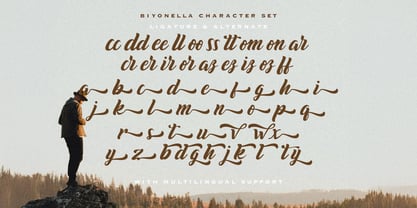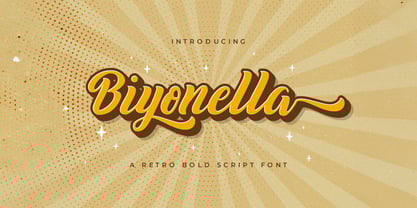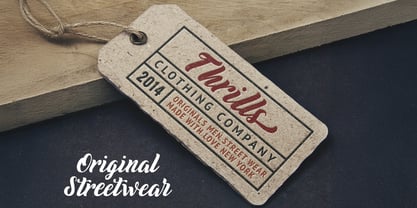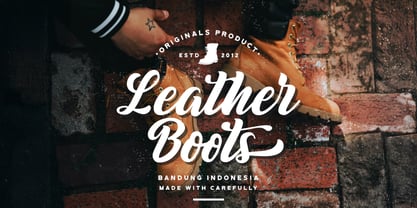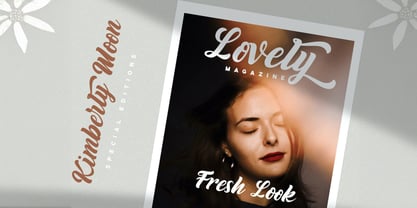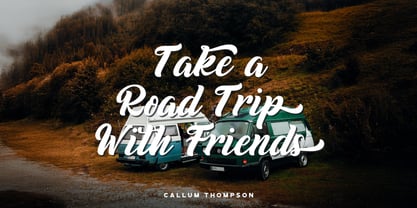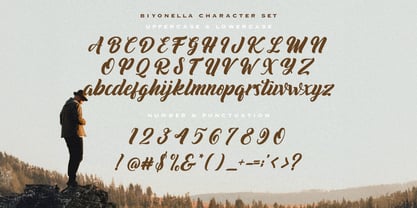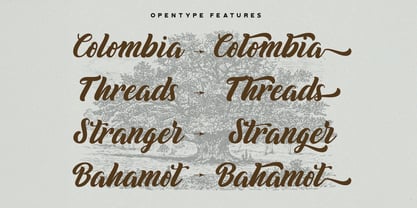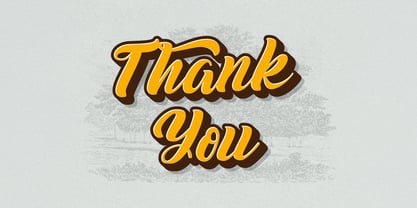
Die Schriftfamilie Biyonella wurde von Virgiawan Listanto entworfen und von Stringlabs Creative Studio veröffentlicht. Biyonella enthält 1 Stile.
Biyonella Retro is Font is a striking and nostalgic typeface that combines boldness with retro flair. Featuring smooth curves and a vintage-inspired design, this font brings a fun, energetic vibe to any project. Whether you're designing for a modern or vintage feel, Biyonella is versatile enough to make your text pop with its unique, timeless style.
Designer: Virgiawan Listanto
Herausgeber: Stringlabs Creative Studio
Foundry: Stringlabs Creative Studio
Eigentümer des Designs: Stringlabs Creative Studio
Biyonella